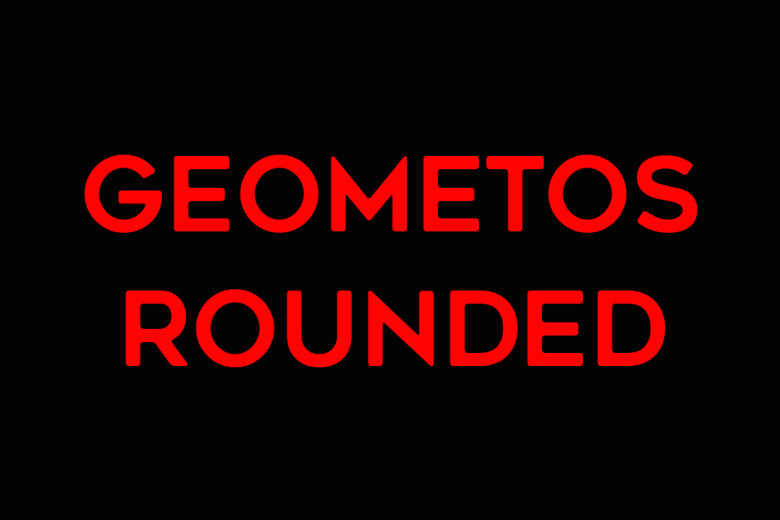
Geometos Rounded Font
Geometos Rounded is a heavy and bold, but rounded on the corners typeface. Geometos Rounded is a high quality Sans Serif font that is designed by Deepak Dogra and is available for free download and personal use. The free version provides all uppercase and lowercase letters and a few special characters too.